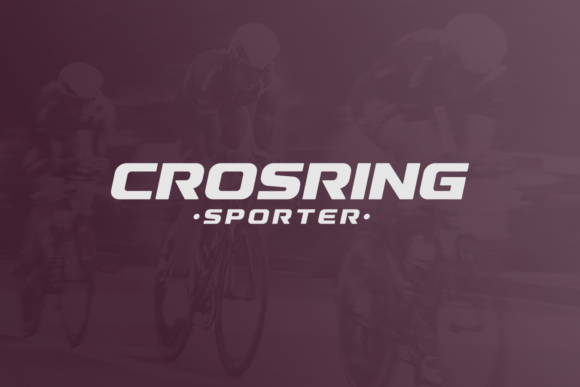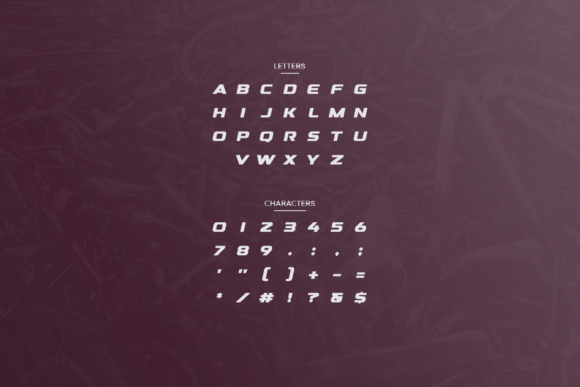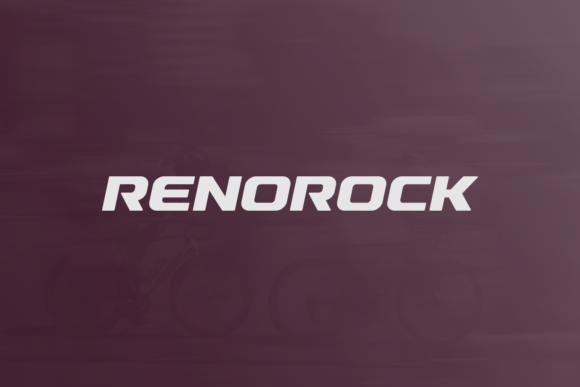
The Cornero Font: A Game-Changer for Sports Branding and Bold Typography
I’ll never forget the design project that led me to discover the Cornero font. I was working on a sports branding campaign for a local marathon, and I was struggling to find the perfect font to capture the energy and dynamism of the event. The client wanted a bold, modern look that would stand out on merchandise, posters, and social media. After hours of scouring font libraries and testing different options, I stumbled upon Cornero – and it was love at first sight! 💡
An Honest Review: What I Love (and What to Watch Out For)
Cornero is a modern display font designed specifically for sports branding, headlines, and prominent typography needs. Here’s what I love about it:
- ✨ Fresh and modern all-caps style that’s perfect for making a statement
- ✅ Highly legible, even at smaller sizes
- 💥 Bold and attention-grabbing, without being too over-the-top
- 🎉 Excellent for sports, tech, action, and futuristic themes
As for quirks or limitations, here are a few things to keep in mind:
- 🤔 Cornero is an all-caps font, so it’s not ideal for body text or longer paragraphs
- ⚠️ Some users may find the font a bit too bold for certain design applications
Cornero was designed with sports branding and bold typography in mind. The font’s creator wanted to craft a modern, attention-grabbing font that would stand out in a crowded design landscape. With its fresh all-caps style and bold personality, Cornero is perfect for designers looking to make a statement.
Q: What type of designs is Cornero best suited for?
A: Cornero is perfect for sports branding, headlines, and prominent typography needs. It’s ideal for designs that require a bold, modern look.
Q: Can I use Cornero for body text?
A: While Cornero is highly legible, it’s not ideal for body text or longer paragraphs. It’s best used for headlines, titles, and short bursts of text.
Q: Does Cornero support OpenType features?
A: Yes! Cornero comes with a range of OpenType features, including glyphs and stylistic alternates. These features can be accessed in compatible design software, such as Adobe Photoshop and Illustrator.